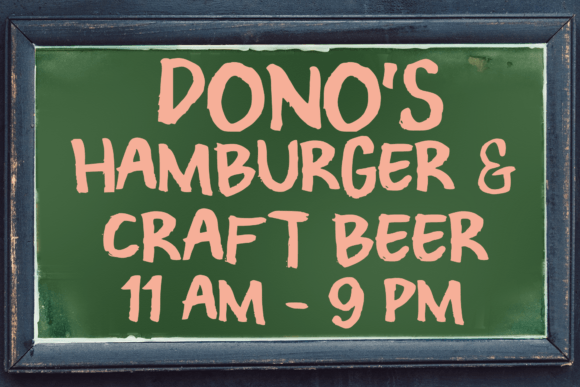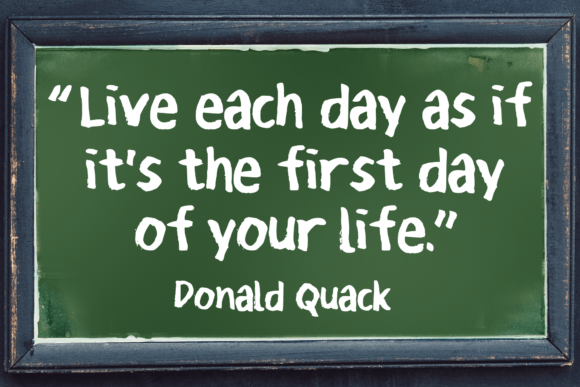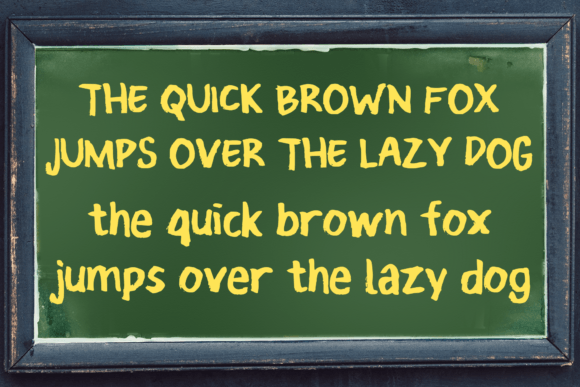
Introduction to Hand Painted Font
Hand Painted is your perfect real hand-painted display font for everything you need.
You can use it for anything ranging from t-shirts, restaurant menu board, greeting cards, stickers, posters, kid’s book design or anything that needs a casual touch Try it to create cool designs and feel the good vibes with it.
Key Features of Hand Painted Font